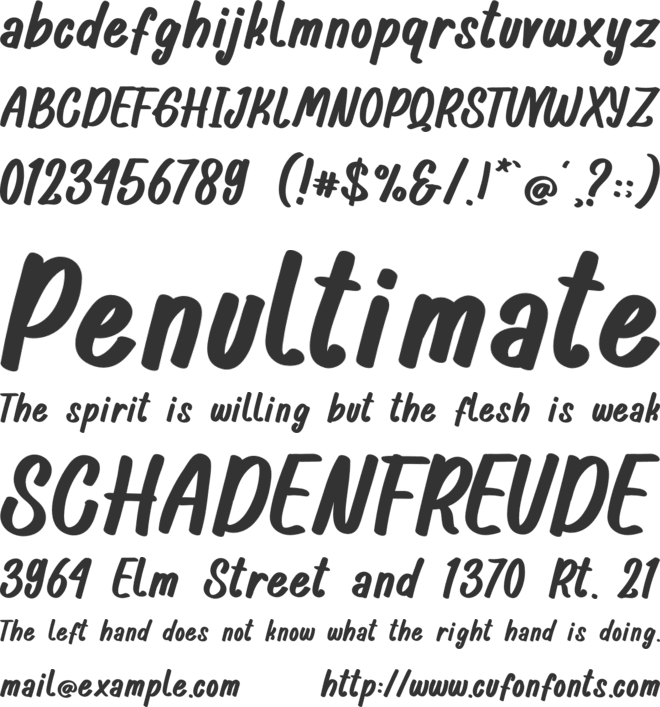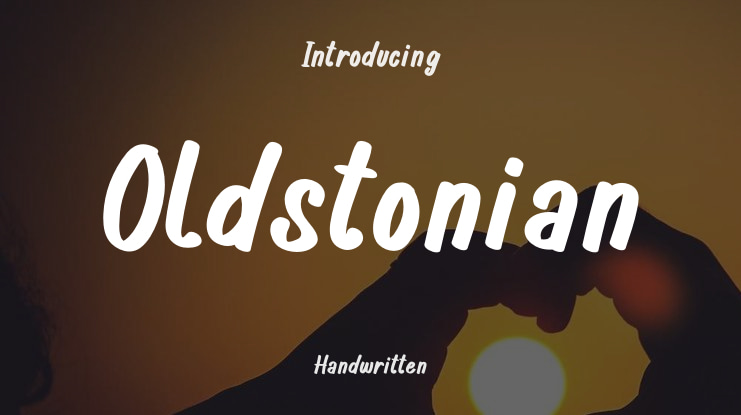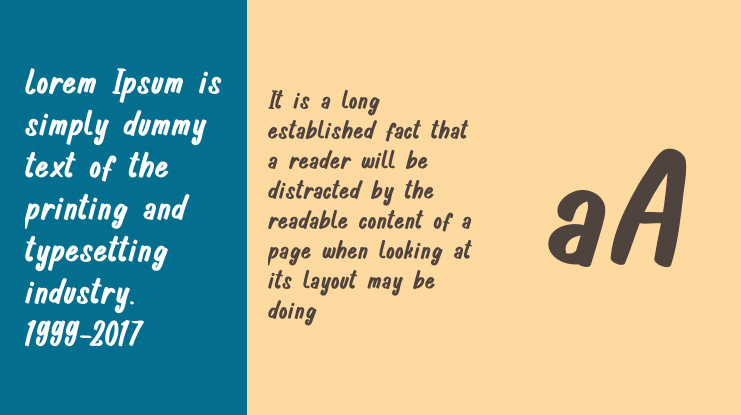
Oldstonian Font
Oldstonian is a bold and charismatic typeface that blends the raw, hand-painted texture of a brush font with the clean structure of a sans serif. Designed with a nostalgic vintage touch, Oldstonian brings character and authenticity to any design it graces.